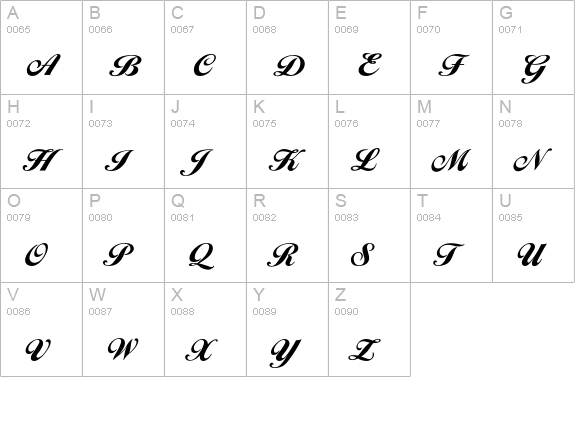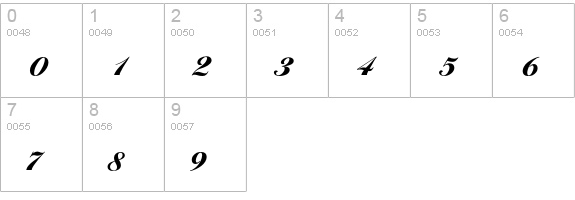
Ballantines-Heavy Font Details
Ballantines-Heavy is a heavy, high-impact variant in the Ballantines typeface family \xE2\x80\x94 well suited to high-impact headlines, posters, and display advertising.
Ballantines-Heavy is a bold and impactful font that exudes strength and power. With its thick lines and sturdy appearance, this font is perfect for making a bold statement in your designs. Whether you're looking to create eye-catching headlines, posters, or logos, Ballantines-Heavy is sure to make a lasting impression. The best part? Ballantines-Heavy is available for free download at FontsMarket.com. This means you can easily incorporate this powerful font into your projects without any added cost. Don't miss out on the opportunity to elevate your designs with the striking presence of Ballantines-Heavy. Download it today and unleash its potential in your creative endeavors.